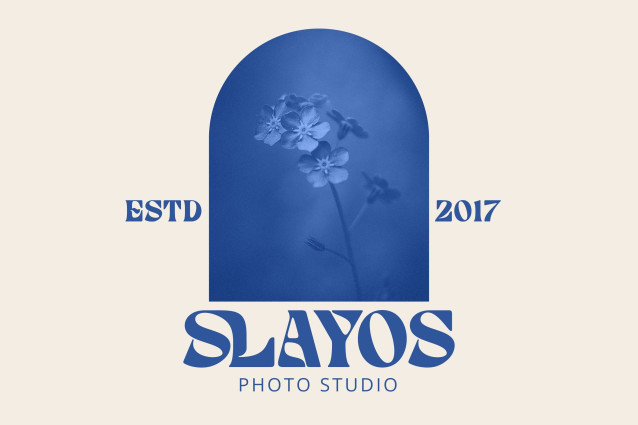
Grefal Display Font
Grefal Display Font is a psychedelic inspired typeface. Unique tripped out lettering makes this font perfect for those groovy band poster, hippy logos and quotes. Grefal Display Font mixes futurist letters with nostalgic curves to create stand out typography.